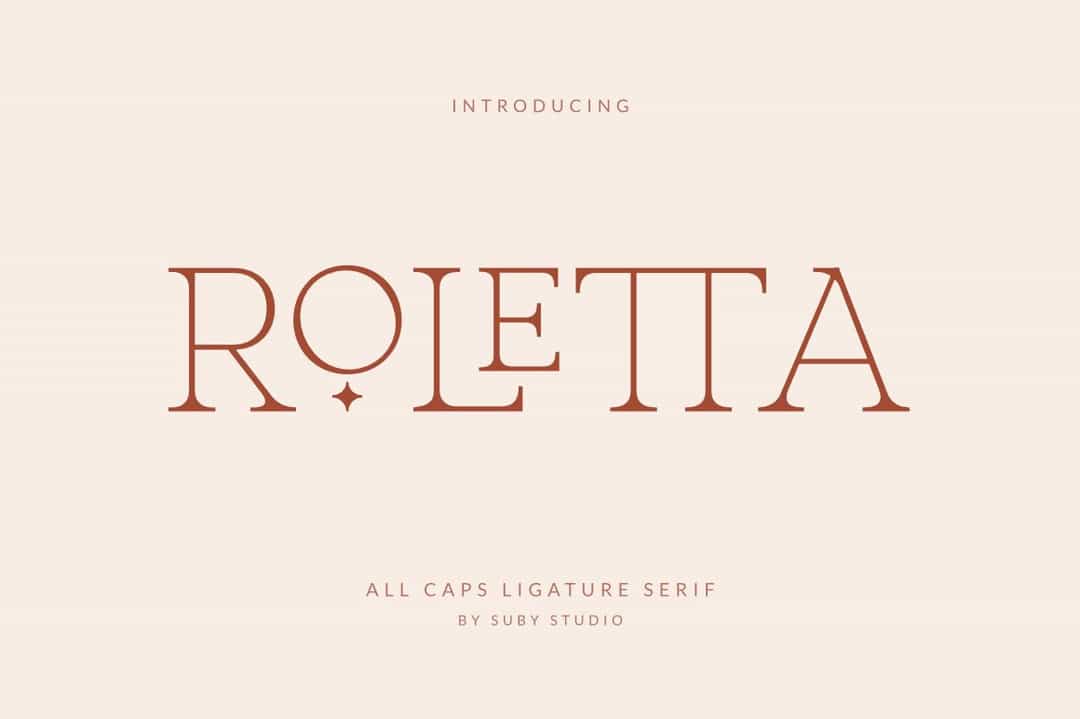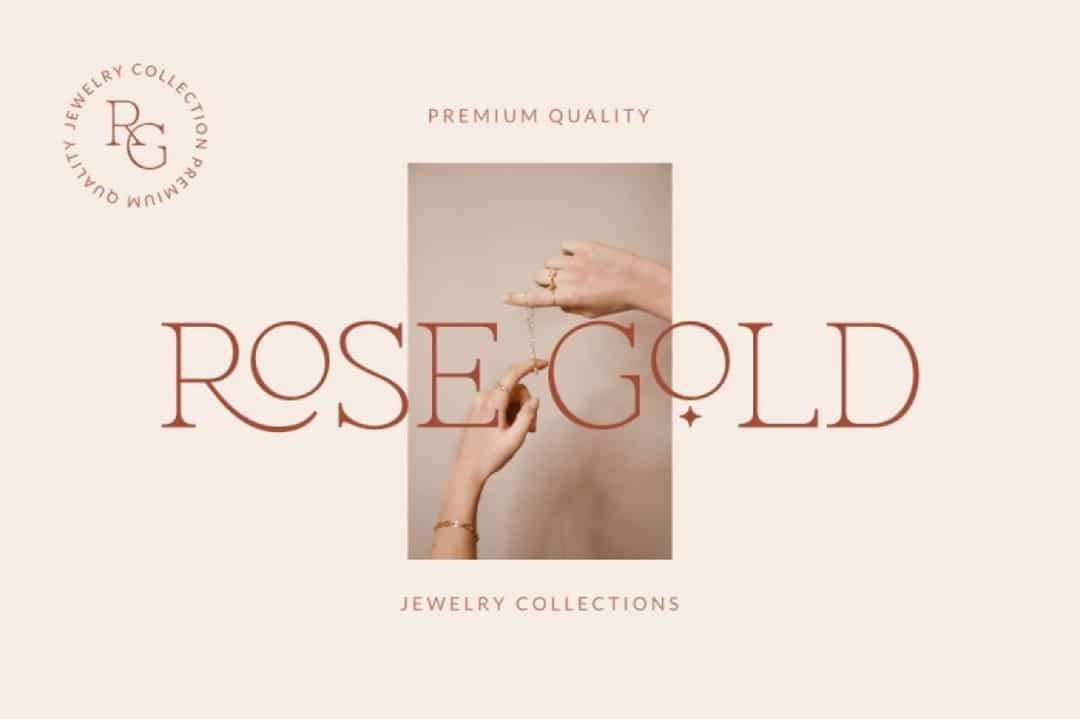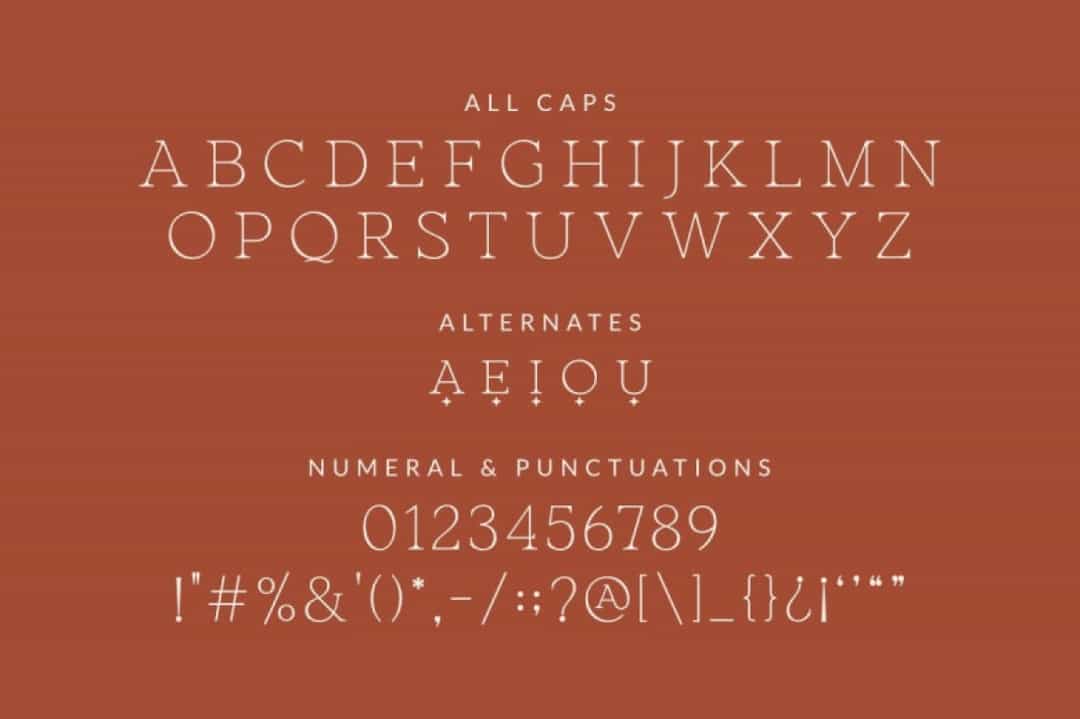
Discover Roletta Font, part of the Serif collection—a versatile and unique font perfect for adding a personal touch to your projects. Download it for free and enjoy crafting designs with style, from invitations to social media posts. This font is available exclusively for personal use, giving you the freedom to create without limits. Unlock your creativity with Roletta Font today!
Roletta is an elegant and stylish serif font. Easy to use, this font can add style and panache to your designs – ideal for branding, logos or invitations.